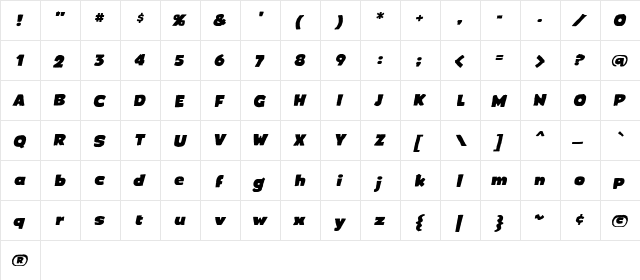
Crimewave BB Italic
| Foundry | Nate Piekos. Blambot.com |
| Designer | Nate Piekos. Blambot.com |
Design Context for Crimewave BB Typeface
Crimewave BB takes a measured approach to typography — its balanced proportions and neutral character make it a reliable workhorse for both digital and print work. Its italic angle brings a sense of urgency and motion to the letterforms.
Pro Tip: Try Crimewave BB for annotation and caption copy alongside an upright companion — the contrast in angle creates a dynamic but ordered typographic system.